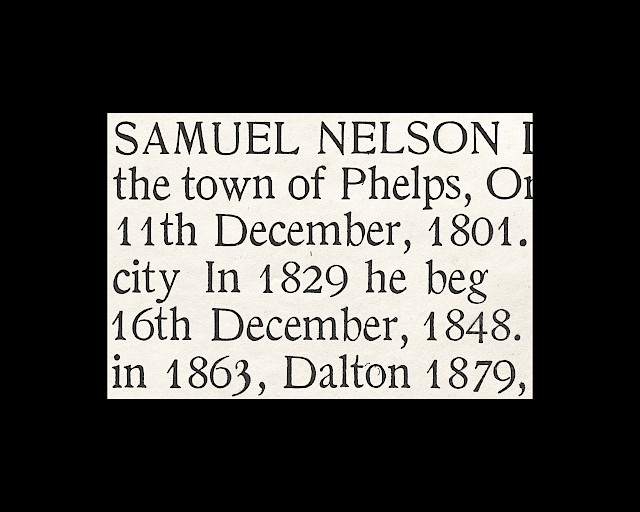
History
Boston Numerals
ToAlter draws inspiration from an uncredited sample titled “Boston Numerals”. Based on a classic, high-contrast serif typeface structure, the font has been constructed with an emphasis on the distinctive oddities visible in the source material. The specimen is special because of its static lowercase “o”, which stands out thanks to the pronounced axis of the lowercase letters “b”, “p”, “d”, and “q”. The high x-height gives the typeface a modern look and allows it to fit seamlessly into compact layouts. Unlike the original specimen, the serif tips are square rather than rounded, to emphasize the sharpness of the strokes. In its single Regular cut, ToAlter fits in a variety of design contexts, offering a style that is both versatile and distinctive. Designed between 2019 and 2023, it was first released in 2022.
Etymology
Borrowing from Middle French altérer, ‘to change’; from Late Latin alterare, ‘to make different’; from Classical Latin alter, ‘other’.
Features
–«{[( ALTER )]}»–
fi fl
0123456789
1/2 + 3/4
1o 1a
A123
- Access All Alternates ( aalt )
- Case-Sensitive Forms ( case )
- Glyph Composition / Decomposition ( ccmp )
- Fractions ( frac )
- Standard Ligatures ( liga )
- Localized Forms ( locl )
- Ordinals ( ordn )
- Proportional Figures ( pnum )
- Superscript ( sups )
- Tabular Figures ( tnum )